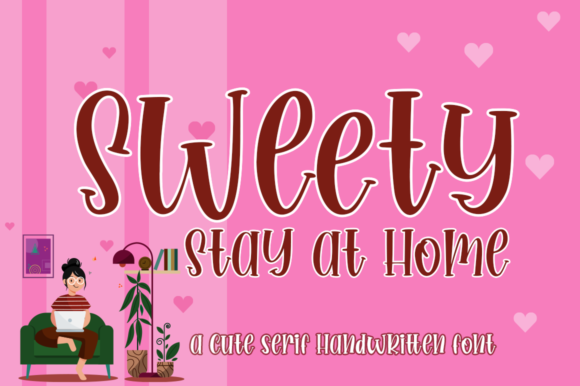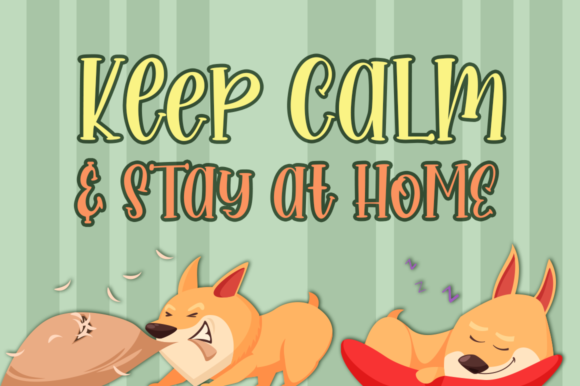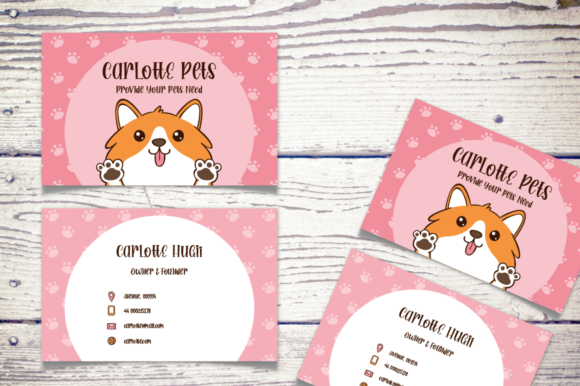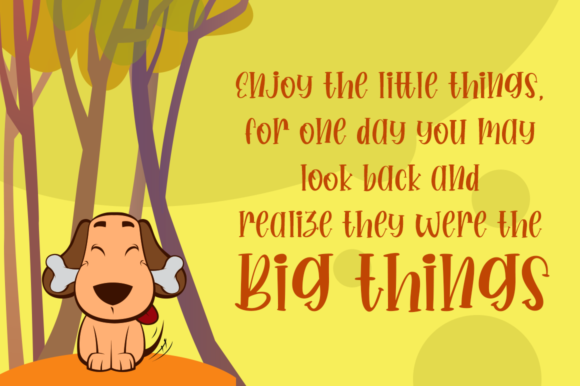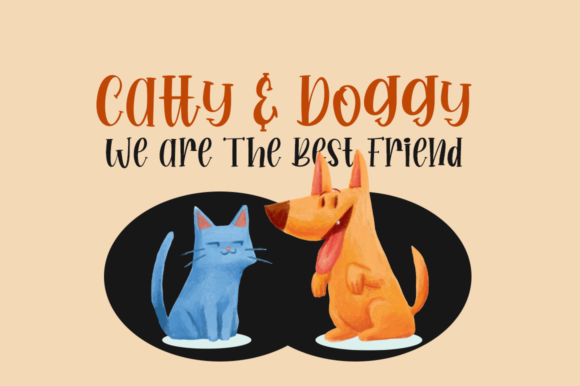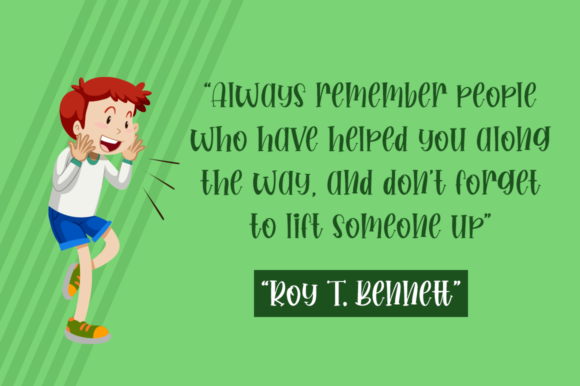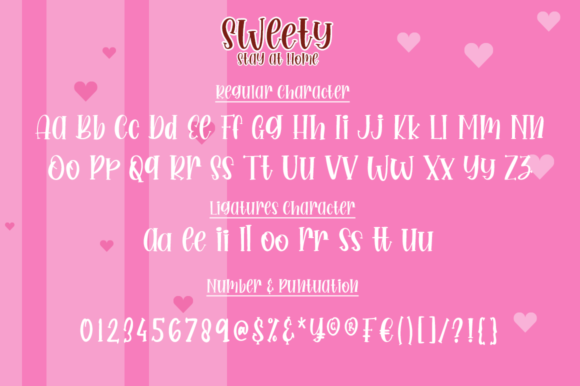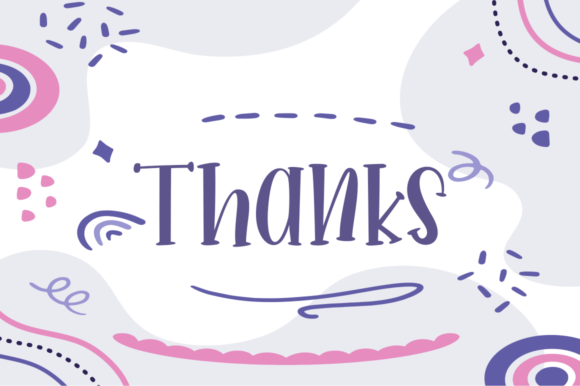
Sweety Stay at Home Font
About Sweety Stay at Home Font
Sweety Stay at Home embodies fun, quirkiness and authenticity. This enchanting handwritten font will turn any creative idea into a true standout.